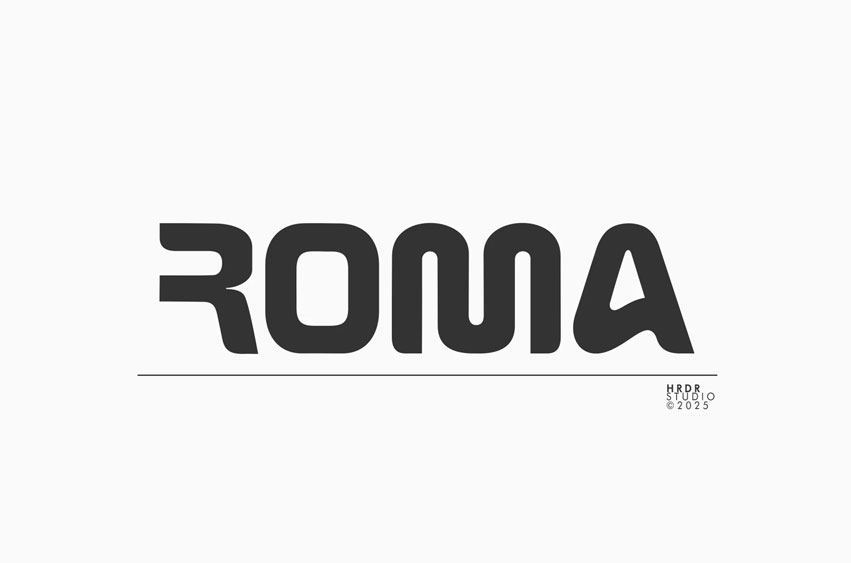
Roma Logo Font
Roma Logo Font is a sans serif font meant for Logo & branding, The characters were built in chunky personality, It’s great for headlines and titles but is also very legible in sentence case.
Font Features :
• numeric & Multilingual support
• Stylistic Alternates with Ss01 & Ss02